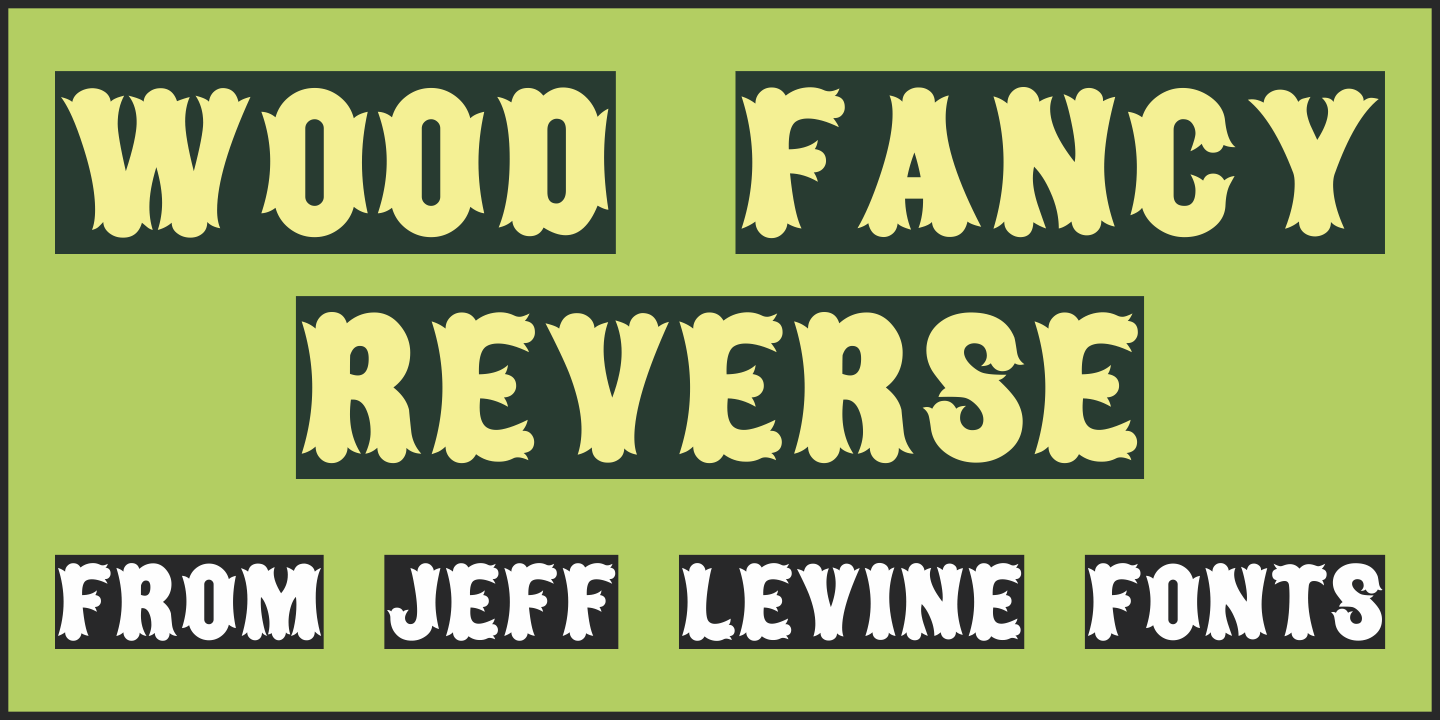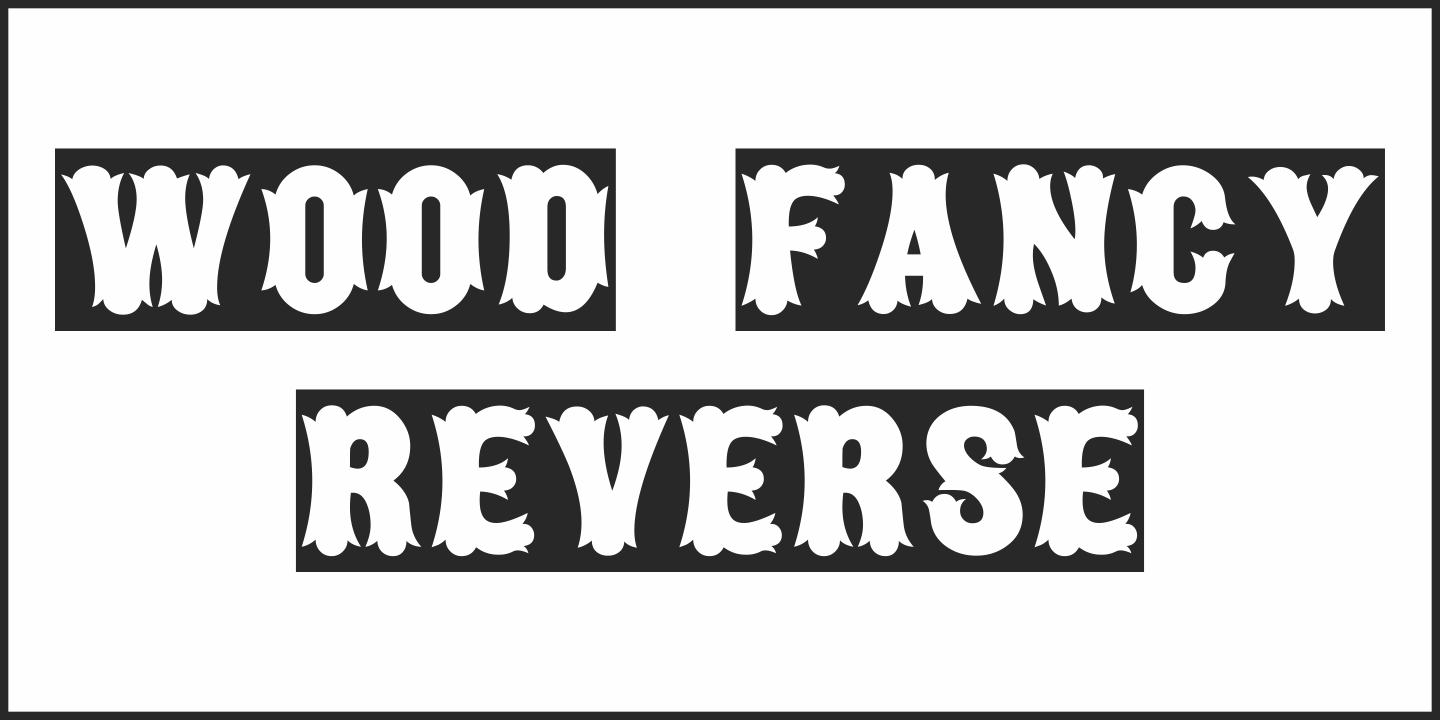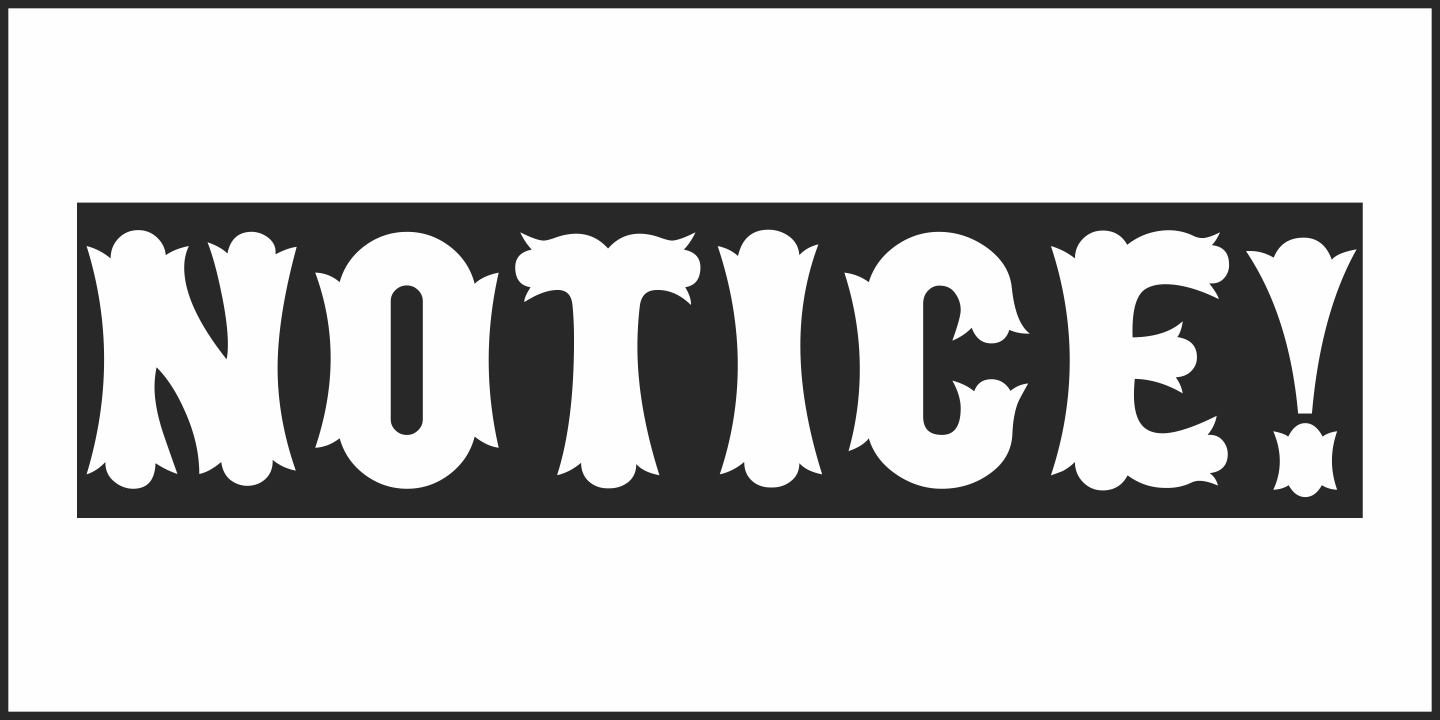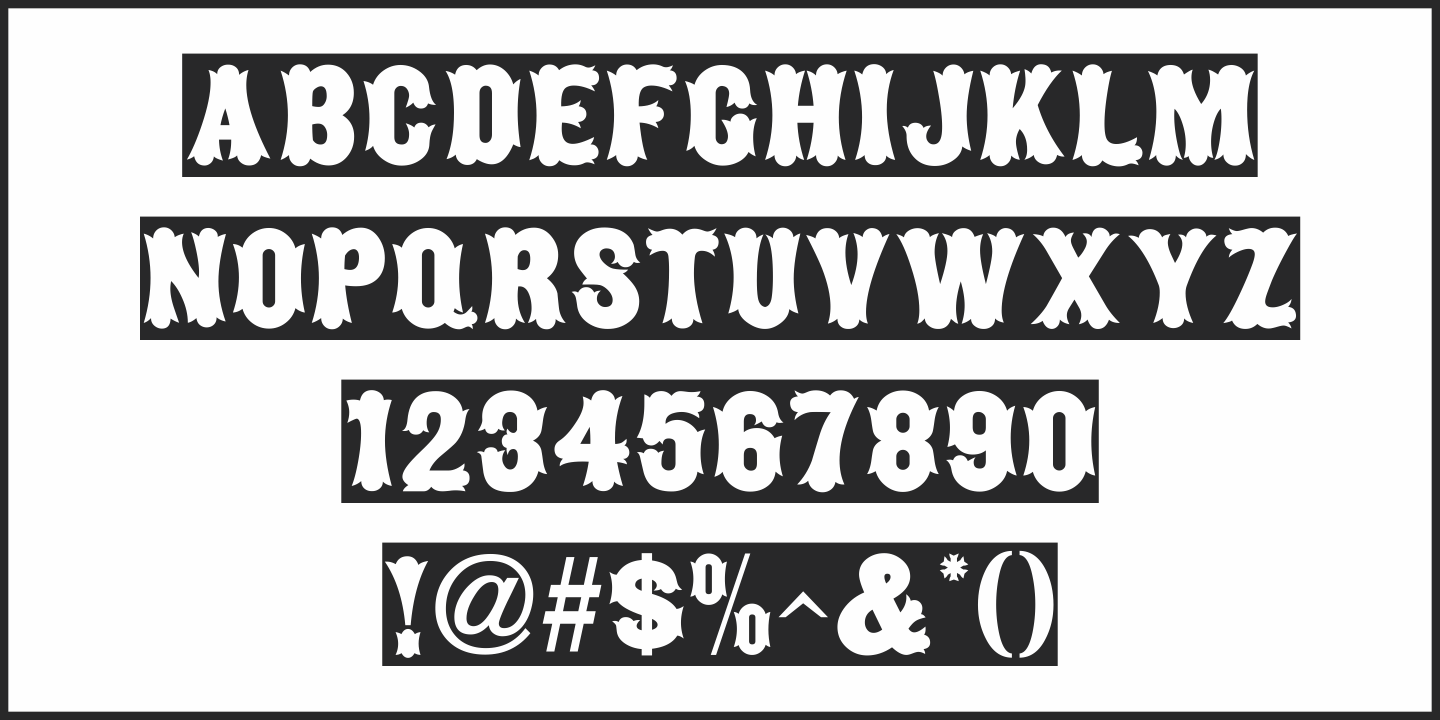
Wood Fancy Reverse
Amongst some pages scanned and posted online of old wood type alphabets comes this lovely, ornamental design in a reversed style of white lettering on black rectangular boxes.
This classic set of wood type is now available digitally as Wood Fancy Reverse JNL.
There is a narrow blank box on the “less than” key for use as an end cap, and a wider blank box on the “greater than” key to use between words as a blank space if so desired.